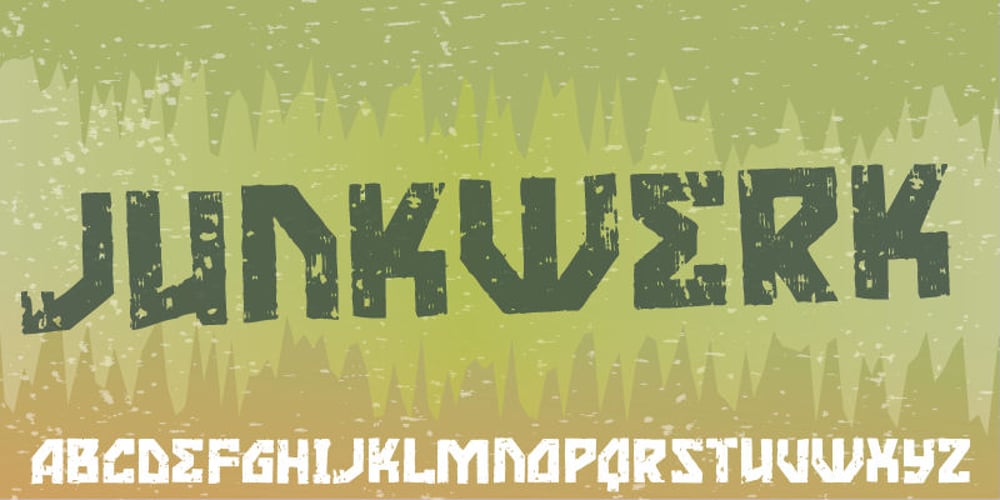
Junkwerk Font Family was designed by Jakob Fischer and published by PizzaDude.dk. Junkwerk contains 1 styles and family package options. Junkwerk is my heavy metal grunge font! It has got that feel like something that was stamped on, jumped on, shaken and headbanged for hours…just like how you would feel after hours of heavy metal! Comes with different upper- and lowercase letters, alternate letters and ligatures for both double letters and double numbers – and ofcourse it has got unique accented letters! You will need to use OpenType supporting applications to use the ligatures.